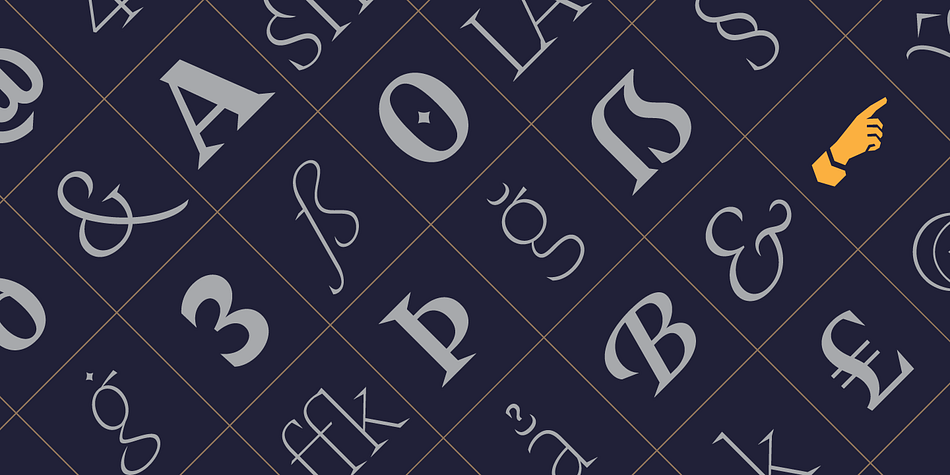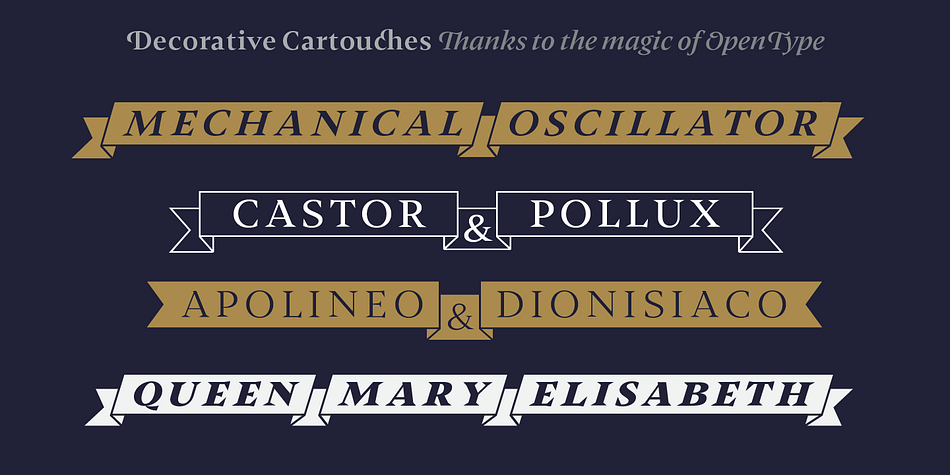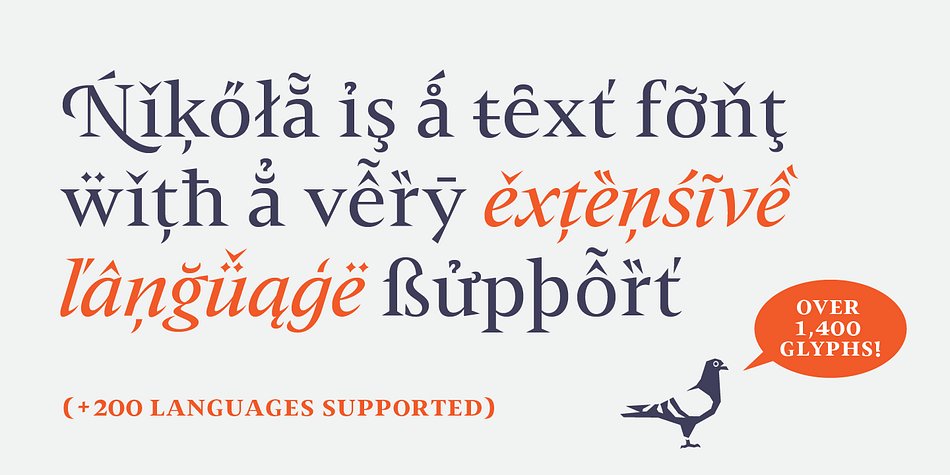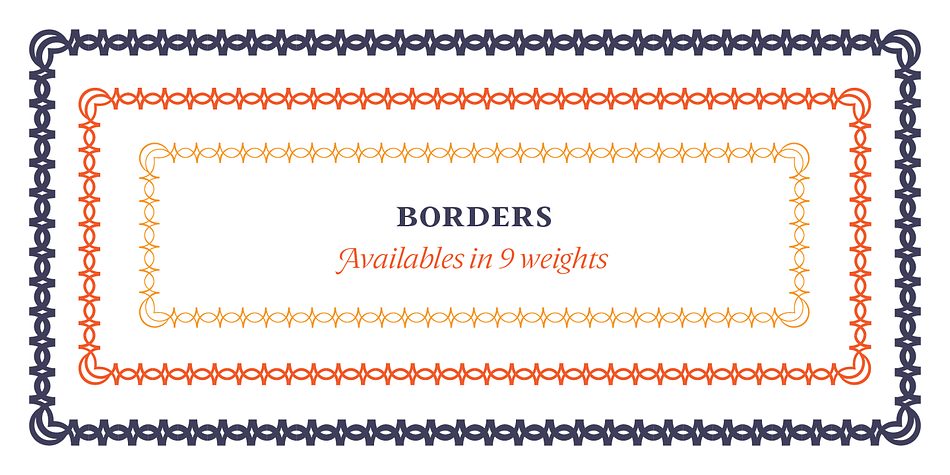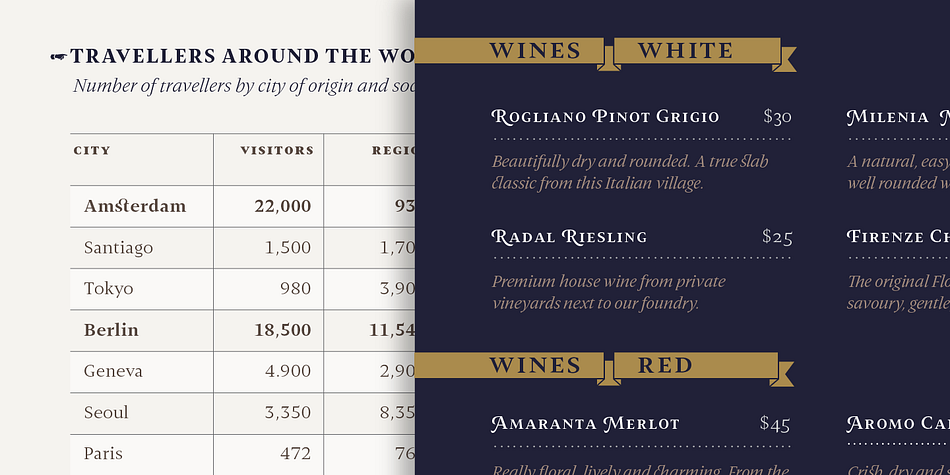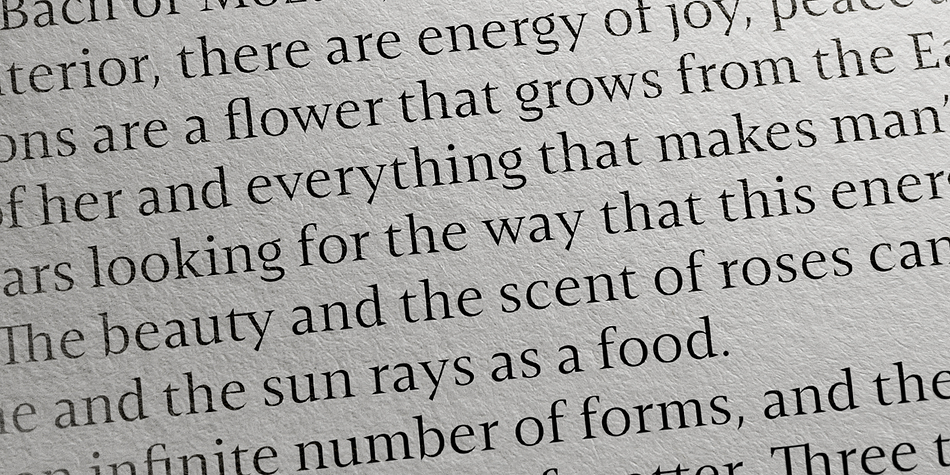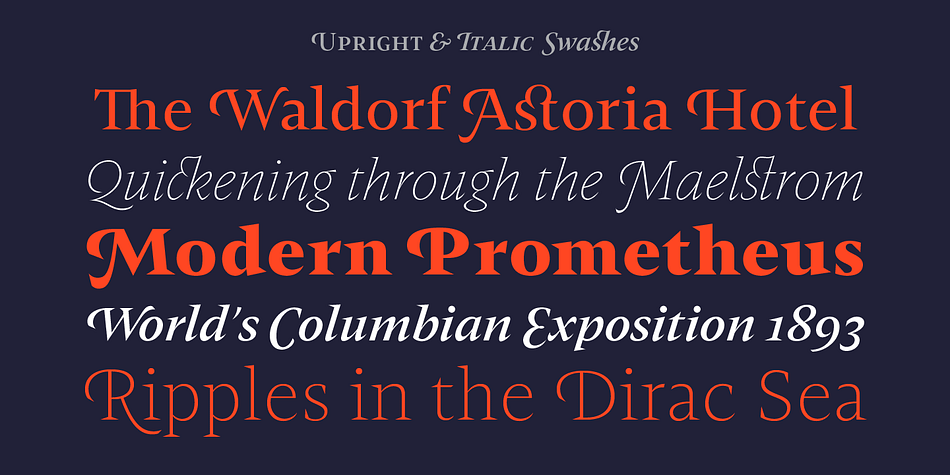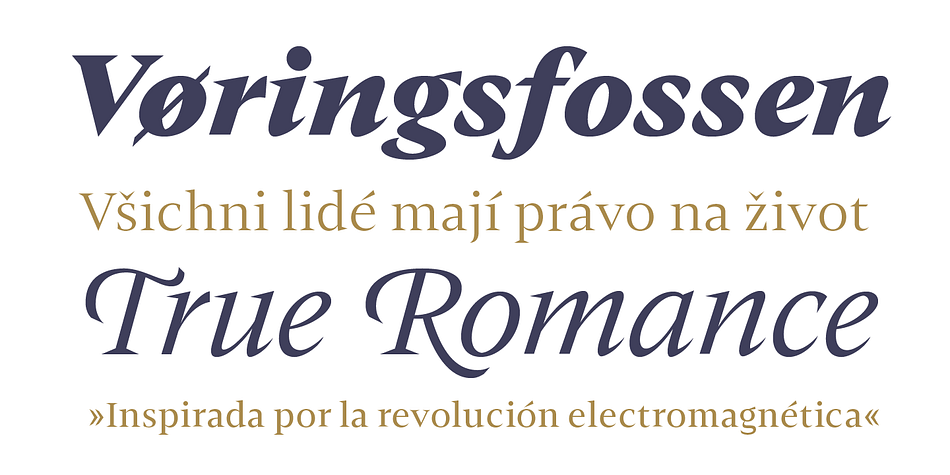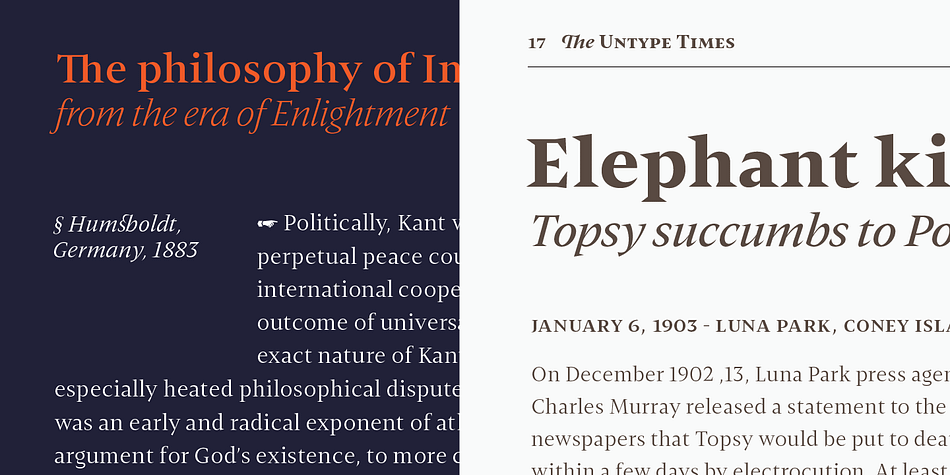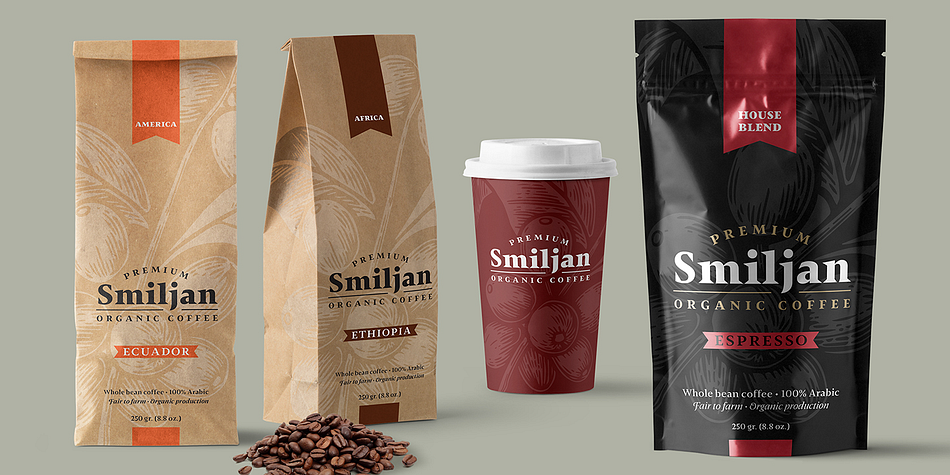
Nikola is a serif font family. This typeface has eighteen styles and was published by Untype.
Nikola is a text typeface that offers a wide range of possibilities. While its regular and medium weights were specially optimized for maximum performance, balanced for excellent legibility and carefully crafted to spread a scent of tradition on long text settings; its extreme weights, on the other hand, were designed with a more display use in mind, and thanks to the flexibility place at disposal by its many alternates, swashes, decorative cartouches, borders, and ornaments, can deliver a vintage, reliable, dynamic, fancy and even playful inflection to the text.
Nikola includes a large set of over 1400 glyphs, support for more than 200 latin script languages and 1.21 gigawatts of the finest type design generated by classic proportions, the elegance and formality of the early XX century and a glimpse of expressionism on terminals and serifs.
Nikola was named after Nikola Tesla as a tribute to the pioneers of the electric age.